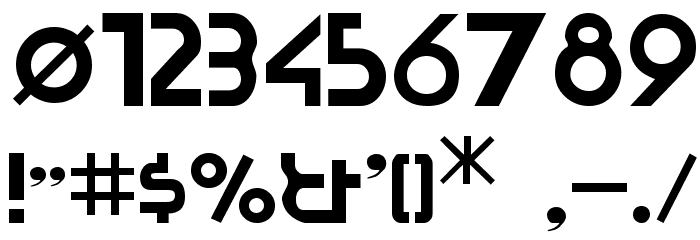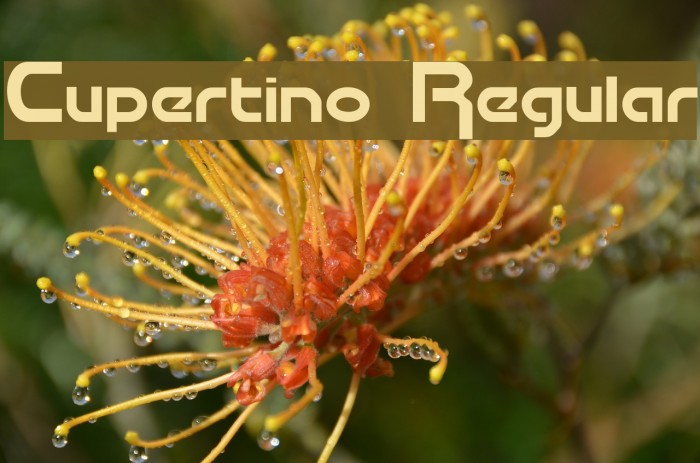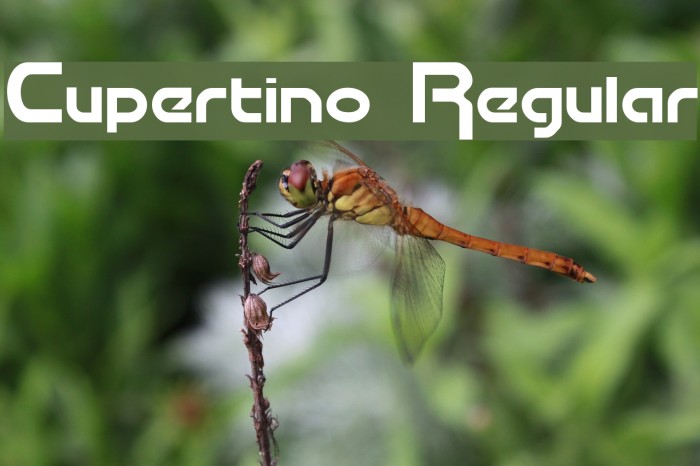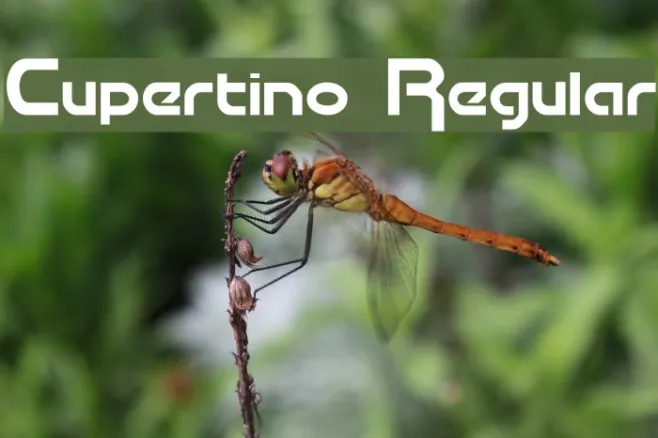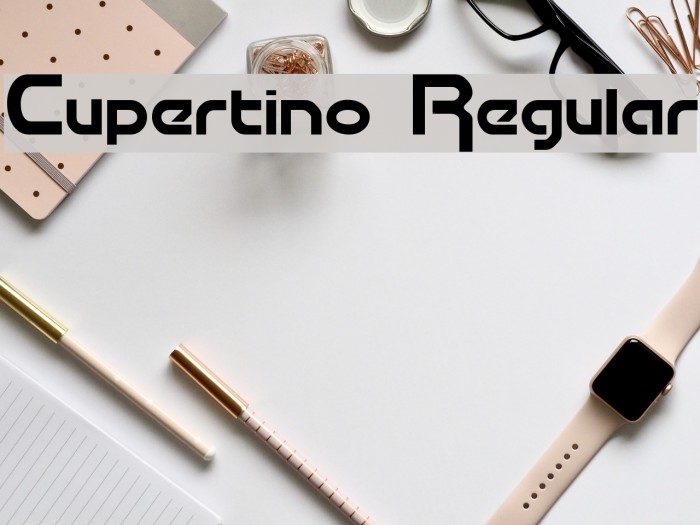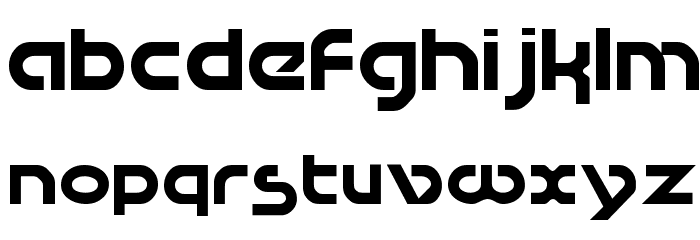
Cupertino Regular Font
Cupertino Regular Description
This font features a modern and geometric design with a strong emphasis on bold, angular shapes. The characters are crafted with a futuristic aesthetic, showcasing a unique blend of sharp edges and smooth curves. The uppercase and lowercase letters maintain a consistent style, with distinct, easily recognizable forms. The numerals are equally bold and geometric, ensuring clarity and impact. Special characters are designed to match the overall modern theme, making this font suitable for contemporary projects.
| Overall Style | Futuristic, Geometric |
| Use Case | Headlines, Logos, Digital Interfaces |
| Proposed Projects | Ideal for tech branding, futuristic designs, digital interfaces, and modern advertising. |